If you’ve ever opened a wedding card and thought, “Wow… this looks gorgeous!”, chances are, it wasn’t just the flowers, gold foil, or paper.
It was the font.
Fonts set the tone for your big day before the guest even reads a single word.
After designing 20+ wedding invitations… I’ve discovered something important: the right font combination sets a romantic tone and it helps you choose fonts for wedding invitations that feel personal and timeless.
In 2025, you’re not stuck with boring, overused wedding fonts. I’ve tested and curated the 10 best font pairings for wedding invitations that work beautifully for different wedding themes, plus I’ve also designed 10 sample wedding invitations so you can see exactly how I use these pairings in my work.
Why Font Choice Matters in Your Wedding Invite
A wedding card isn’t just for telling people the date and venue. It’s the very first impression of your big day.
The moment someone sees your invite, the font already tells them:
- Is the wedding formal or casual?
- Is the theme modern, classic, or a bit rustic?
- How much love and attention you’ve put into the details
Pick the right font and your invite feels elegant.
Pick the wrong one and… well, let’s just say it’ll give “Word doc from 2005” vibes 😅
💡Pro Tip: Always pair your main decorative font with a clean serif or sans serif for details. It keeps the design beautiful and easy to read.
Quick Handwritten & Script Font Pairing Cheat Sheet for Wedding Invitations
Need the perfect combo right now? Here’s your instant reference guide:
| Script / Handwritten Font | Pairing Font | Vibe |
|---|---|---|
| Praise | XB Yas | Elegant & Cultural |
| Russkopis | 29LT Riwaya | Cultural Heritage |
| Amoresa Aged | Kelvinch | Aged Elegance |
| Fineday | Times New Roman | Simple & Timeless |
| Playlist Script | Caladea | Relaxed & Readable |
| Buffet Script | Monradok | Confident & Strong |
| Italianno | Palatino / Garamond | Old World Charm |
| Hot Salsa | Calisto MT | Vibrant Energy |
| Script MT Bold | Quicksand | Modern & Clean |
| Storefront Pro | Maharlika | Luxurious Elegance |
The table gives you a quick idea of which fonts work well together, but seeing them in real wedding invitations makes all the difference. That’s exactly what I’ve shared below.
10 Script & Handwritten Font Pairings for Wedding Invitations You’ll Love
So, let’s look at some of the best font pairings for wedding invitations in 2025. Whether you’re planning a grand church wedding or a simple outdoor celebration, these combinations balance elegance and personality to match every style.
1. Praise + XB Yas
Font Pairing Tip: Use a decorative script like Praise for couple names to create a focal point, paired with a clean serif like XB Yas for easy readability in event details.
2. Russkopis + 29LT Riwaya
Font Pairing Tip: Use Russkopis for the couple’s names to draw attention, while keeping 29LT Riwaya for all secondary text like date, venue, and RSVP. This balance ensures your design feels artistic yet remains perfectly readable in print.
3. Amoresa Aged + Kelvinch
Font Pairing Tips: Pair a flowing script like Amoresa Aged with a classic serif such as Kelvinch to balance elegance with readability—perfect for wedding stationery that feels both romantic and refined.
4. Fineday + Times New Roman
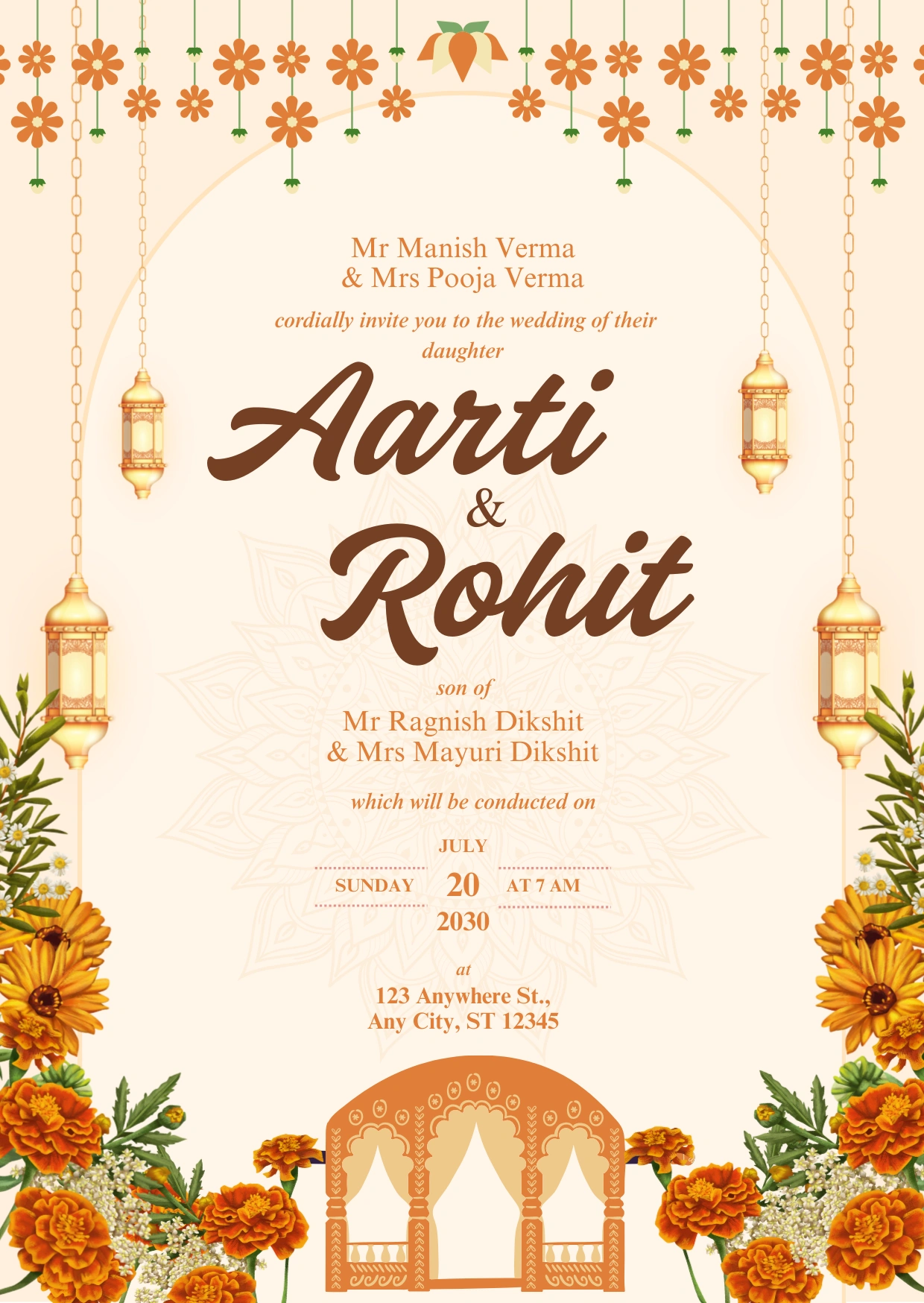
Font Pairing Tips: Use Fineday for the main highlight and Times New Roman for the details. This keeps your design beautiful without losing readability.
5. Playlist Script + Caladea
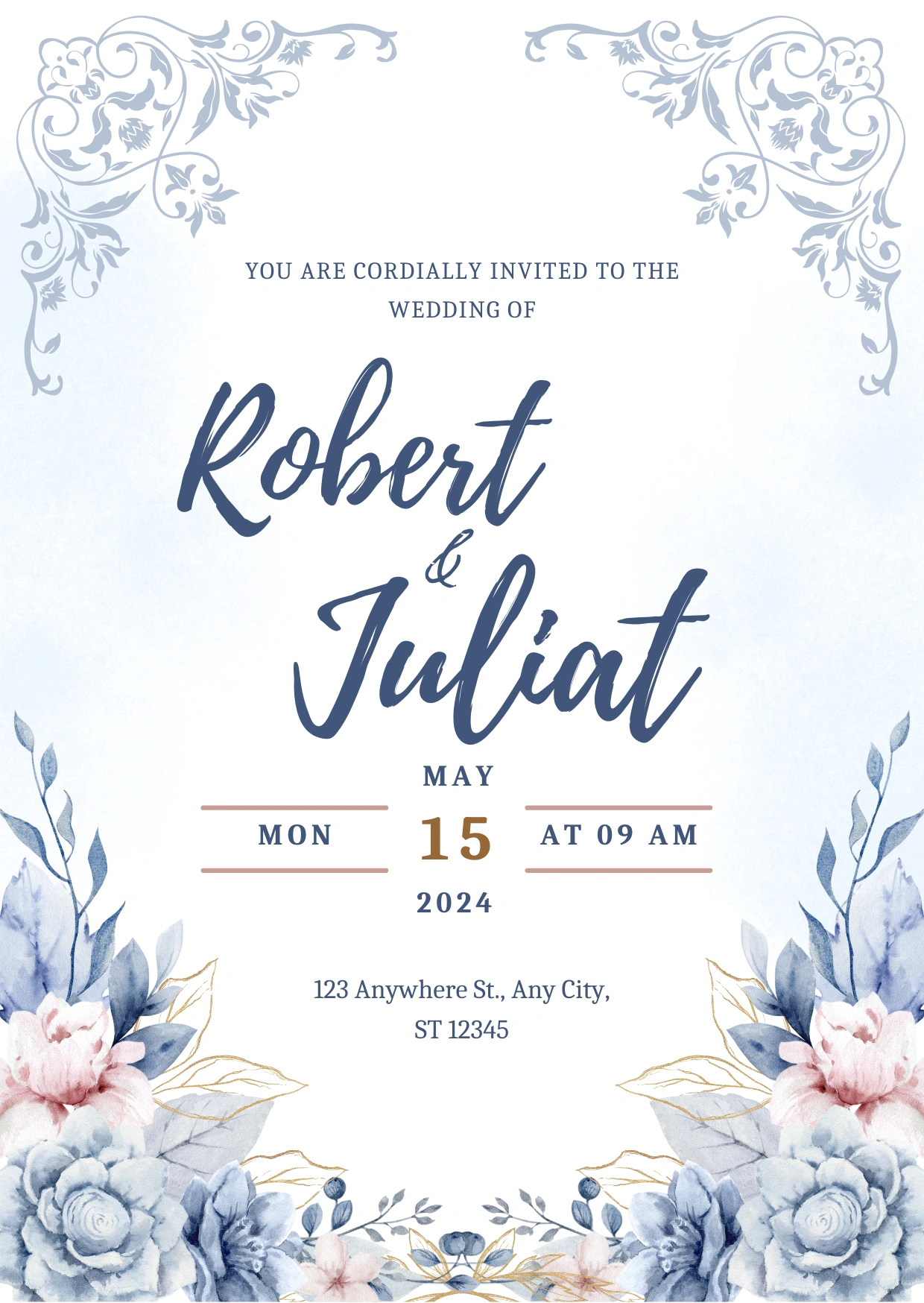
Font Pairing Tip: Playlist Script shines best on names or short phrases. Balance it with a clean serif like Caladea so the invite feels elegant without losing clarity.
6. Buffet Script + Monradok
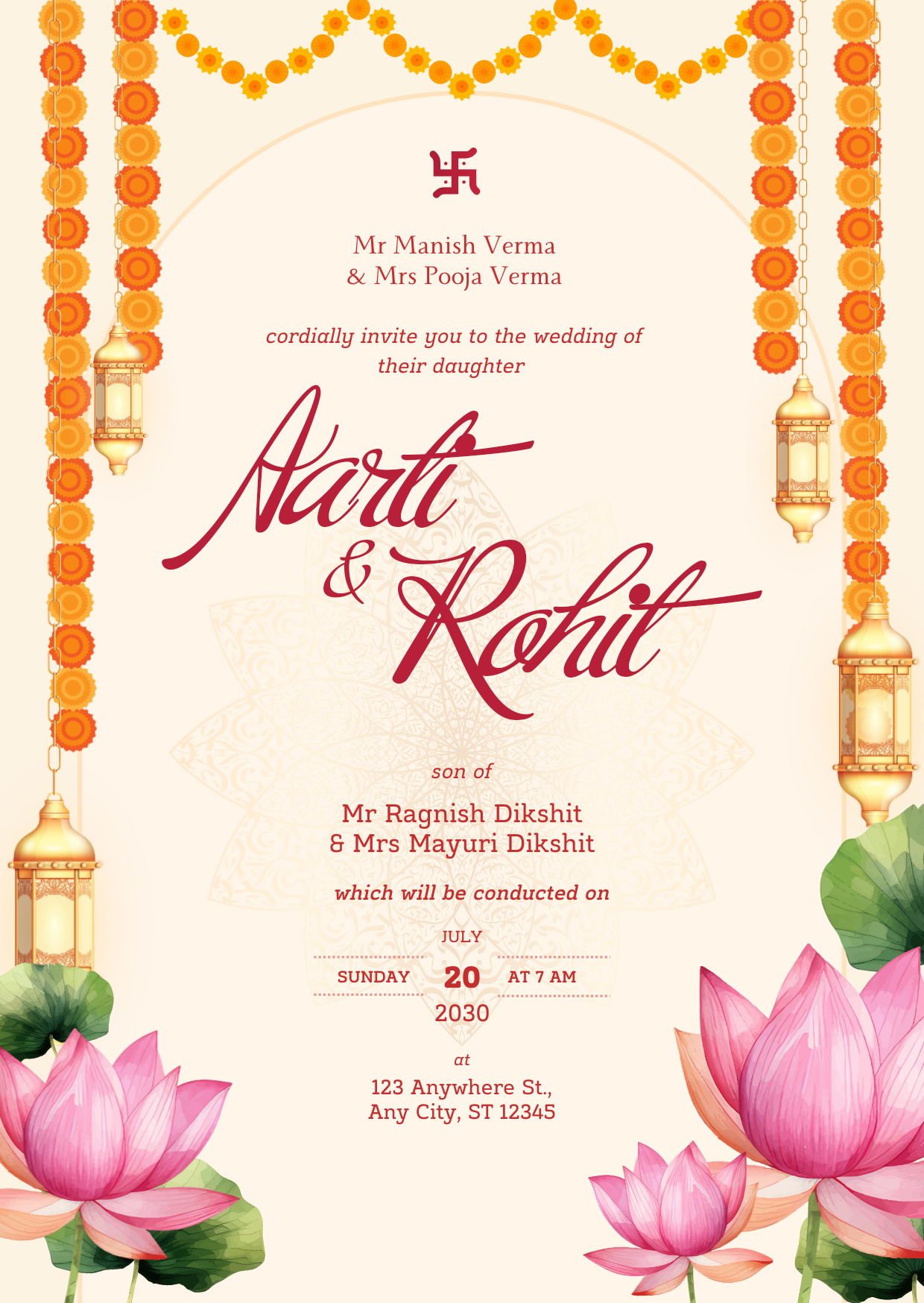
Font Pairing Tip: If your main font is bold and full of character, like Buffet Script, let the second font breathe. A clean serif like Monradok balances the energy, so your invite feels rich without getting too heavy.
7. Italianno + Palatino
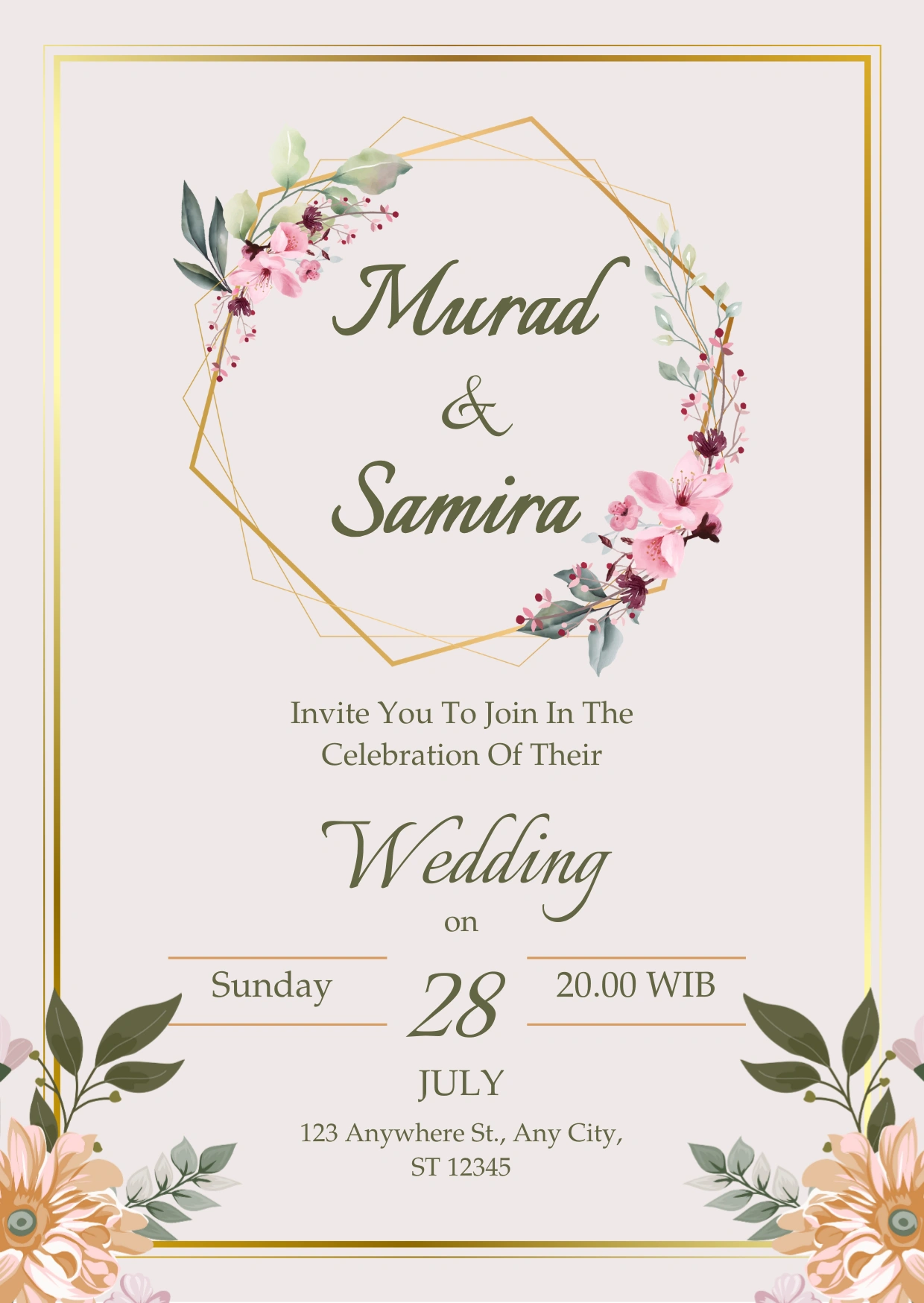
Font Pairing Tip: Use a graceful script like Italianno for names or highlights to make them feel special. Pair it with a classic serif like Palatino, or Garamond for a softer vibe, to keep the rest of the text readable and refined.
8. Hot Salsa + Calisto MT
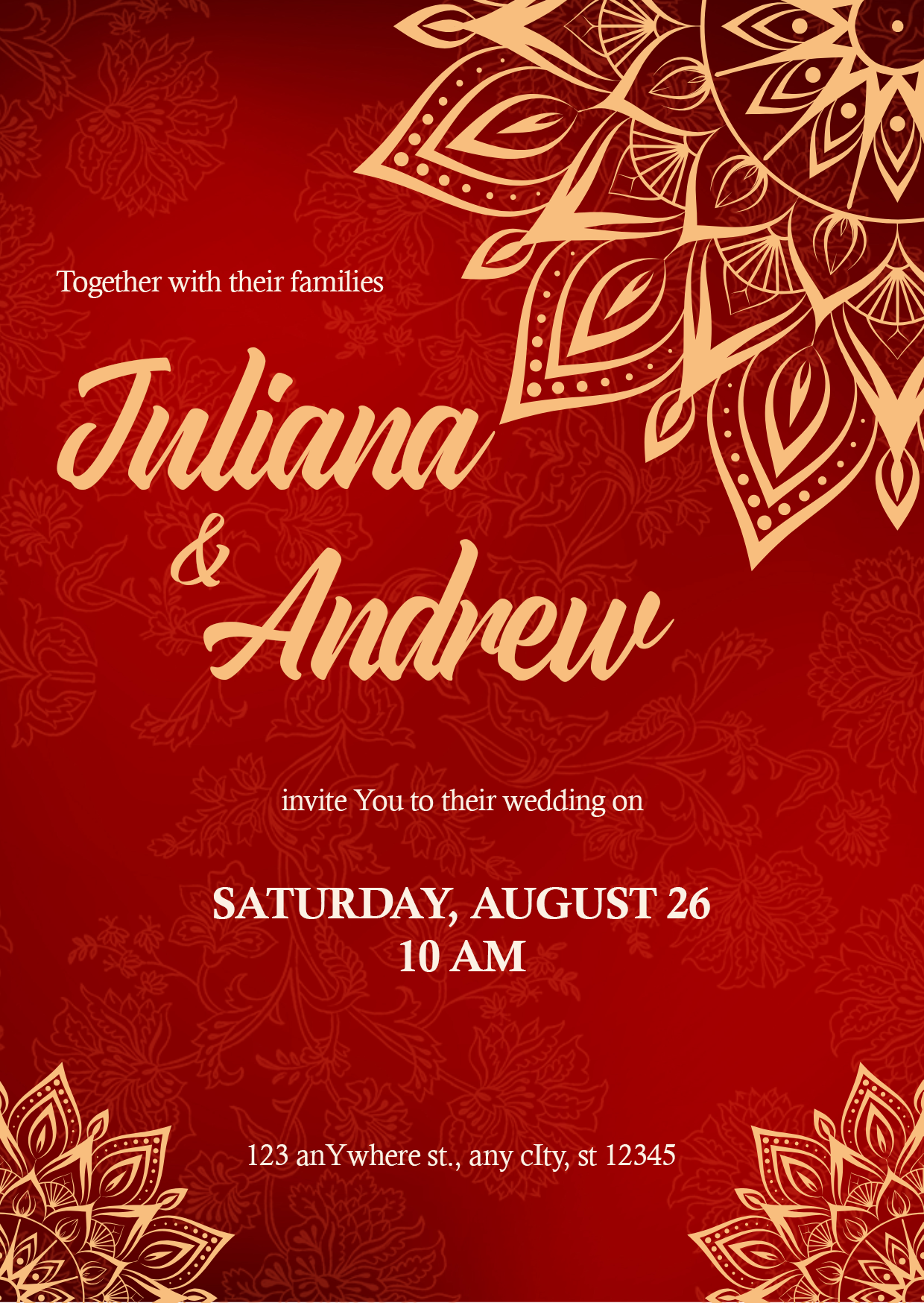
Font Pairing Tip: Use a stylish script like Hot Salsa for the names, then balance it with a classic serif such as Calisto MT for the body text. It keeps the invite elegant without overdoing it.
9. Script MT Bold + Quicksand
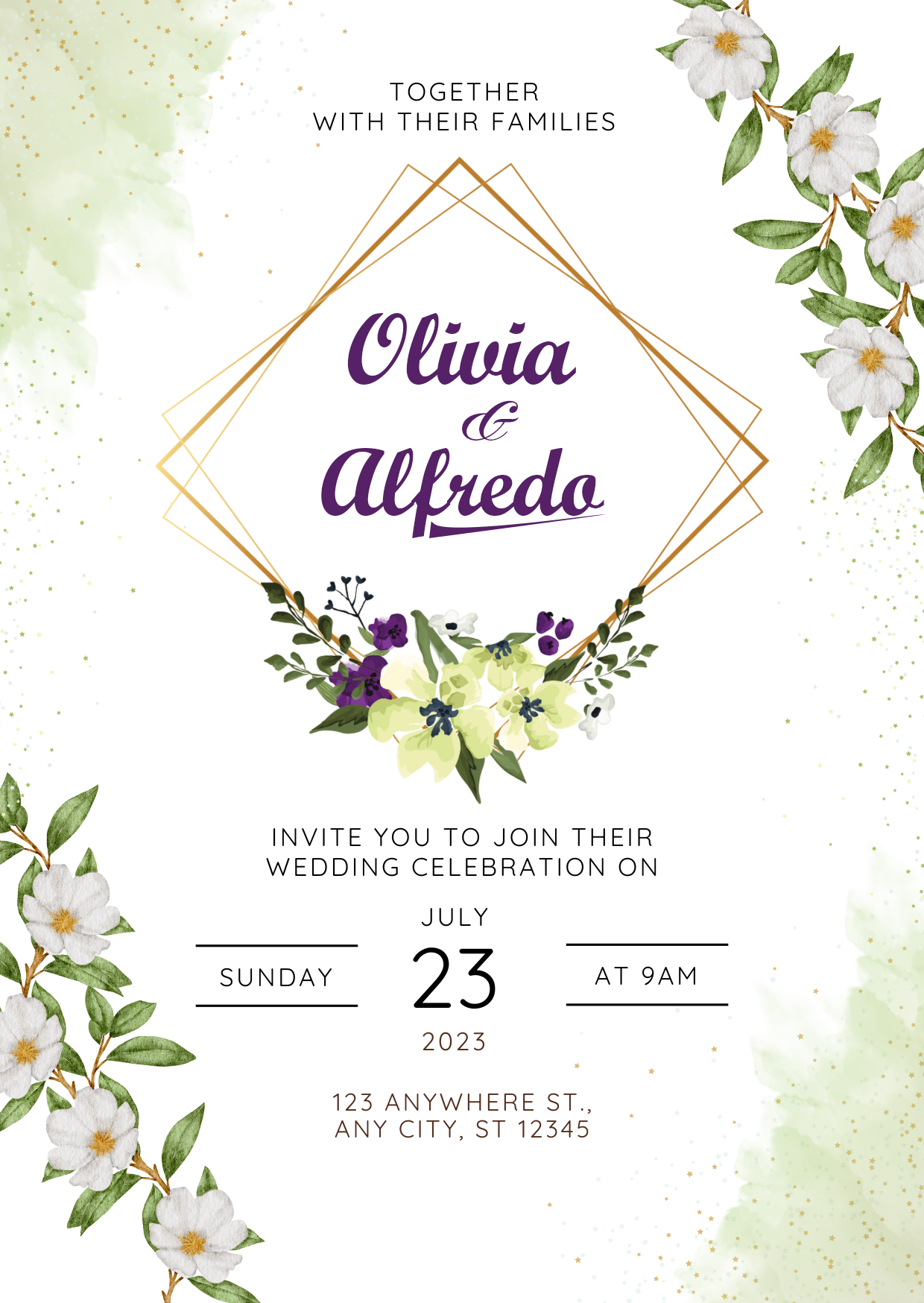
Font Pairing Tip: Pair a bold script like Script MT Bold with a clean sans-serif, such as Quicksand or even a classic serif.
10. Storefront Pro + Maharlika
Font Pairing Tip: Use a bold, stylish script like Storefront Pro to give names a dramatic spotlight. Balance it with a timeless serif font, such as Maharlika, to keep the rest of the text formal and easy to read.
Pick one script or handwritten font for the couple’s names (that’s your “wow” factor) and pair it with a simple serif or sans-serif for the body text. This keeps the invite romantic but still clear and readable for your guests.